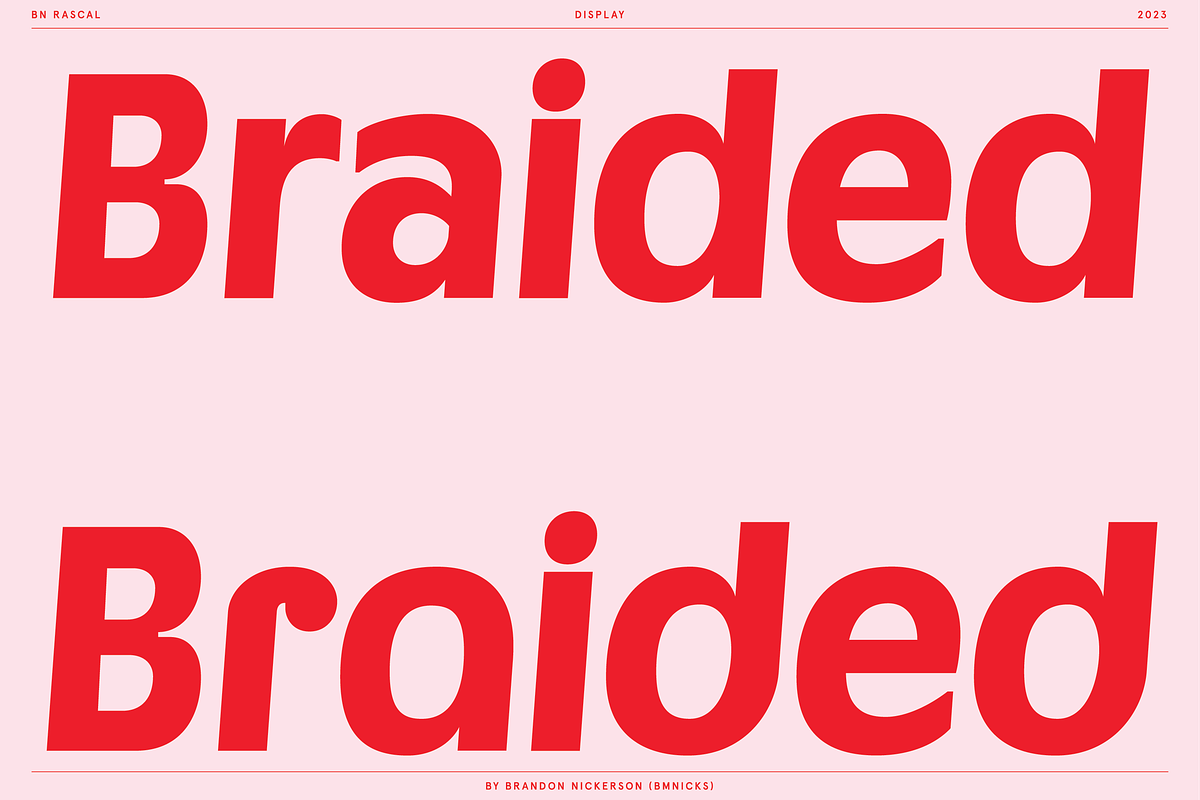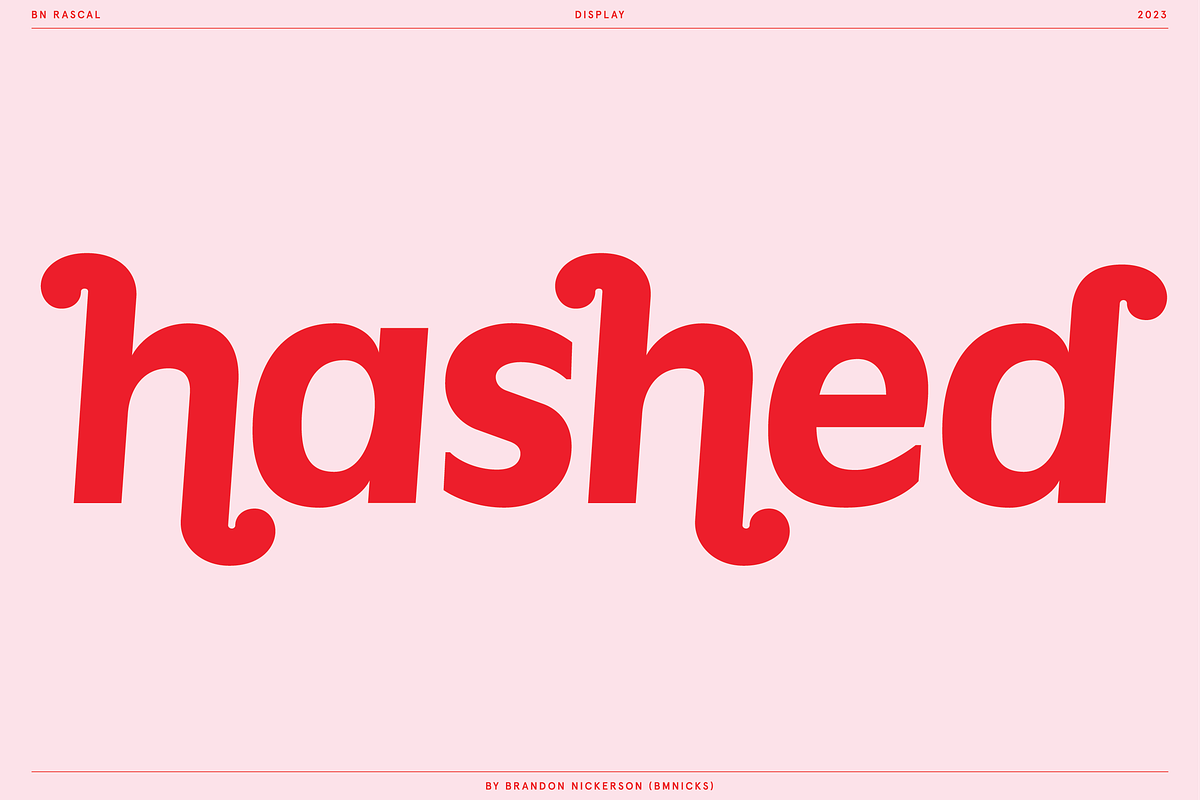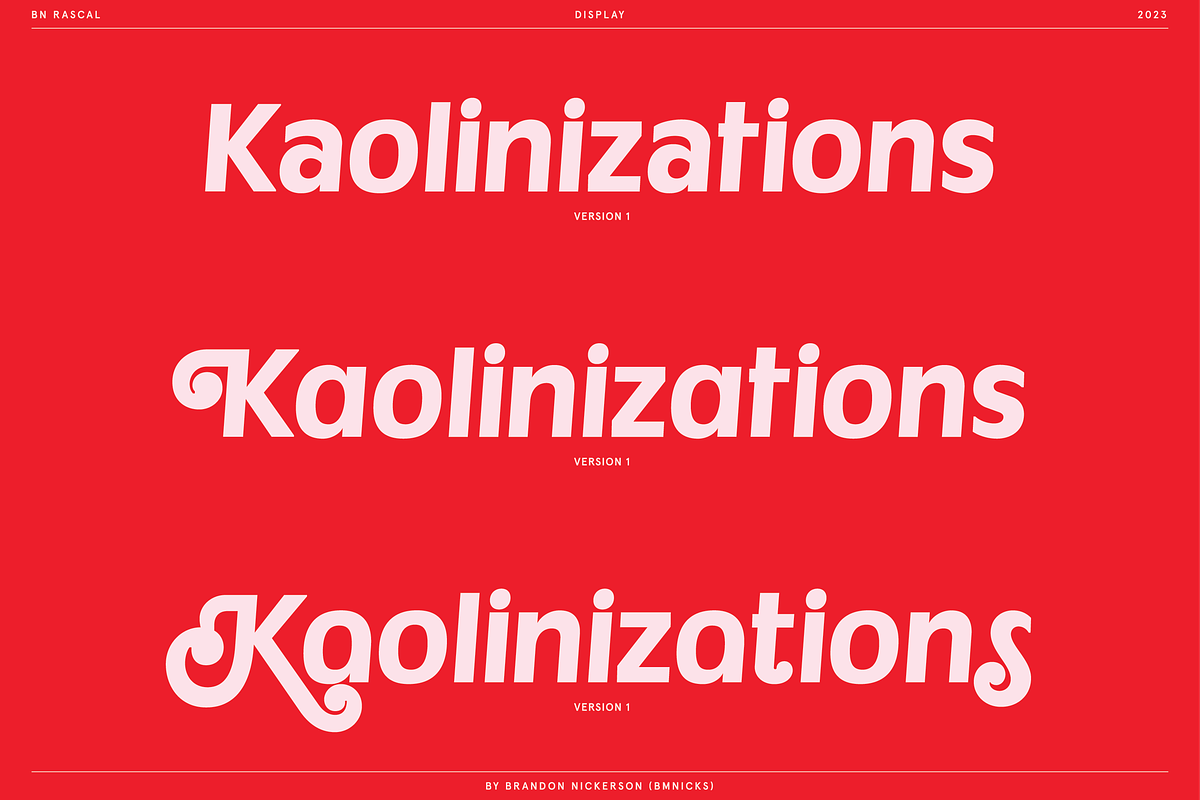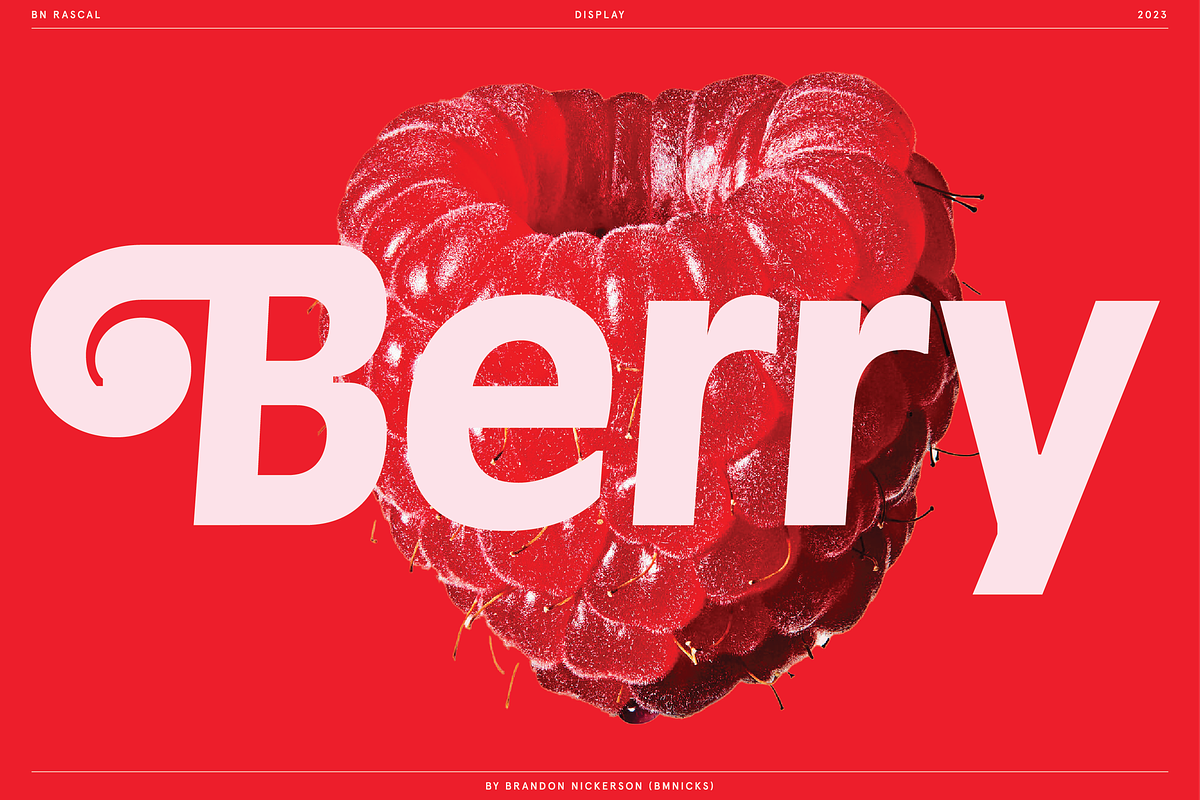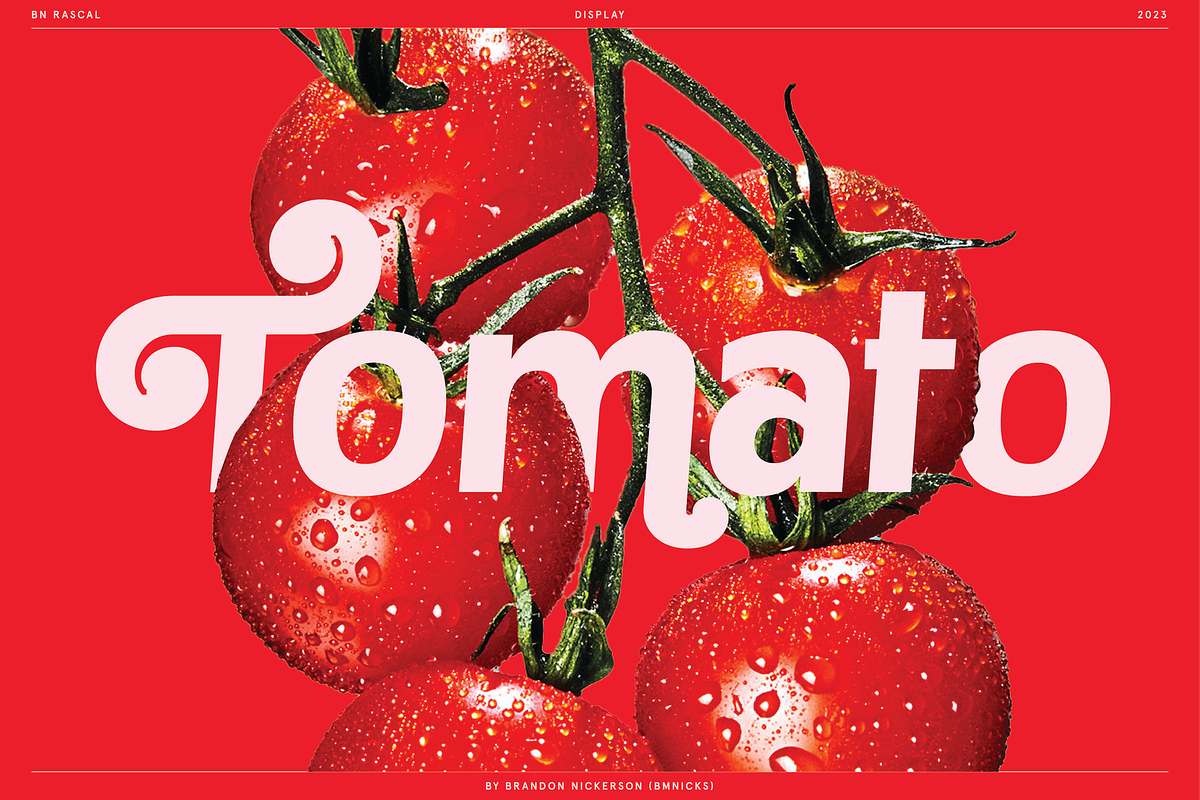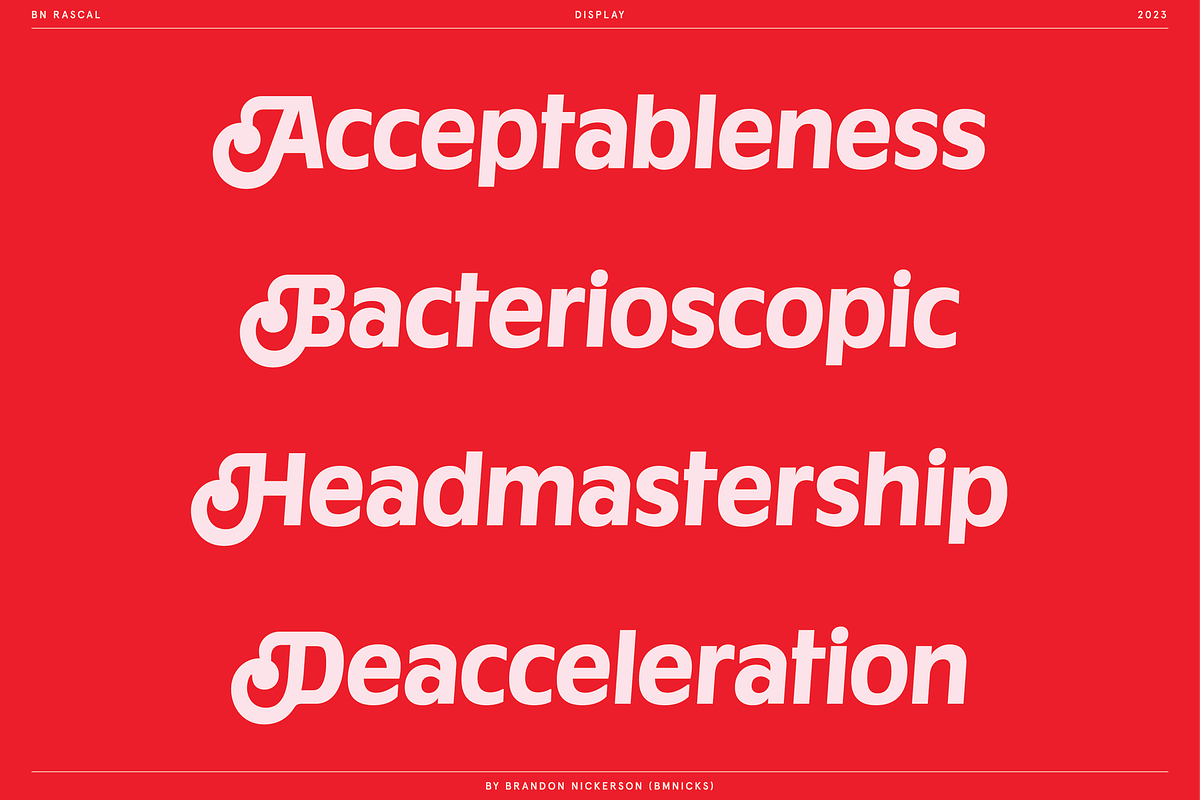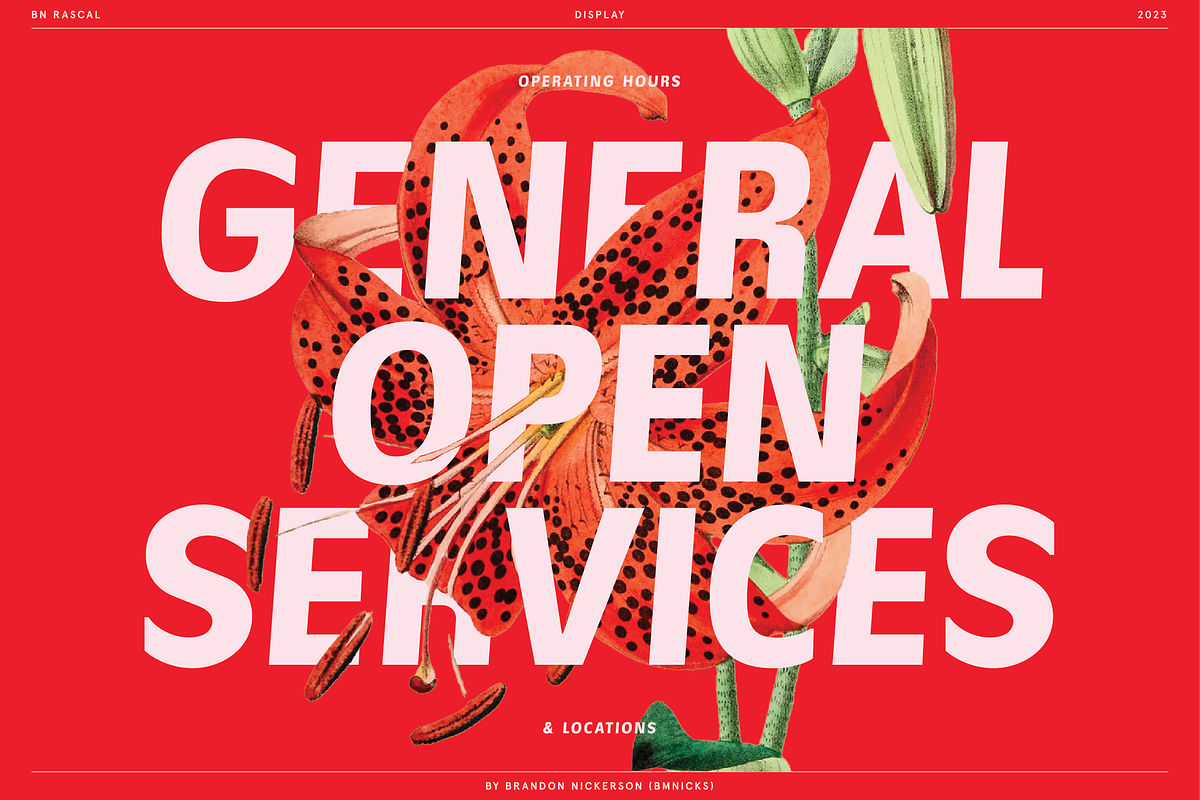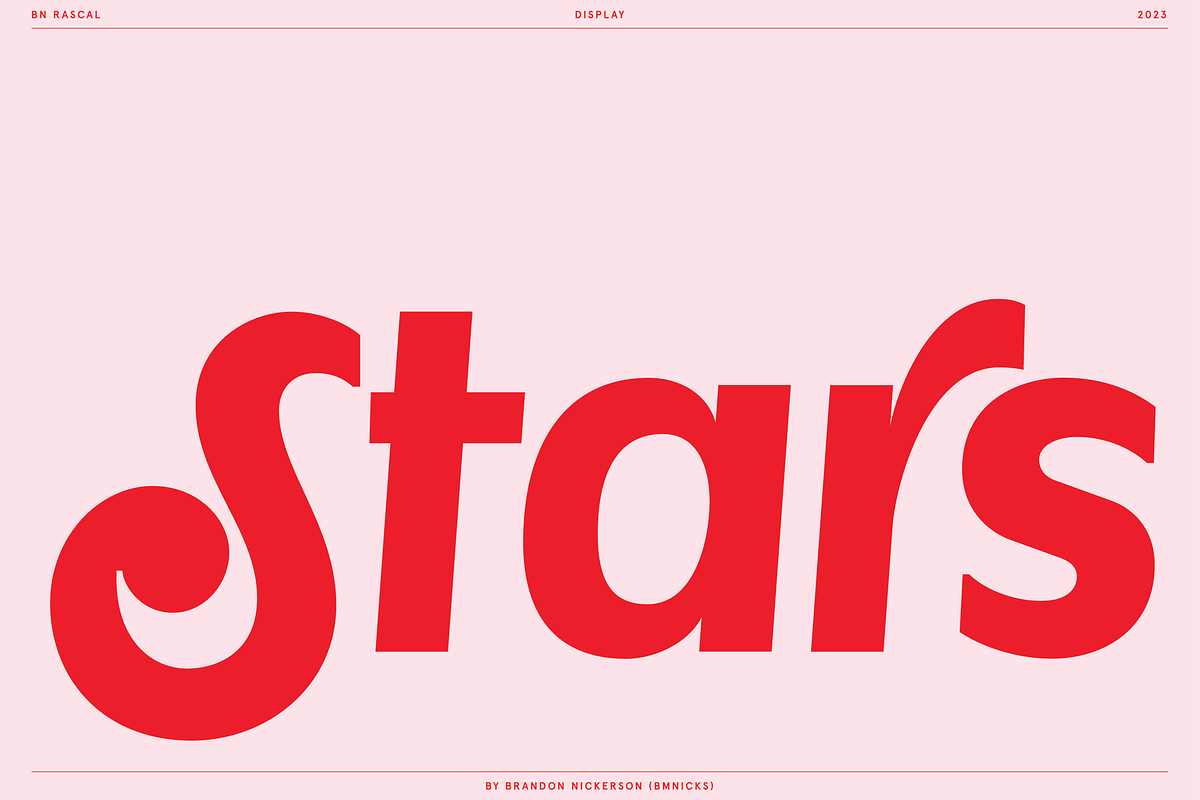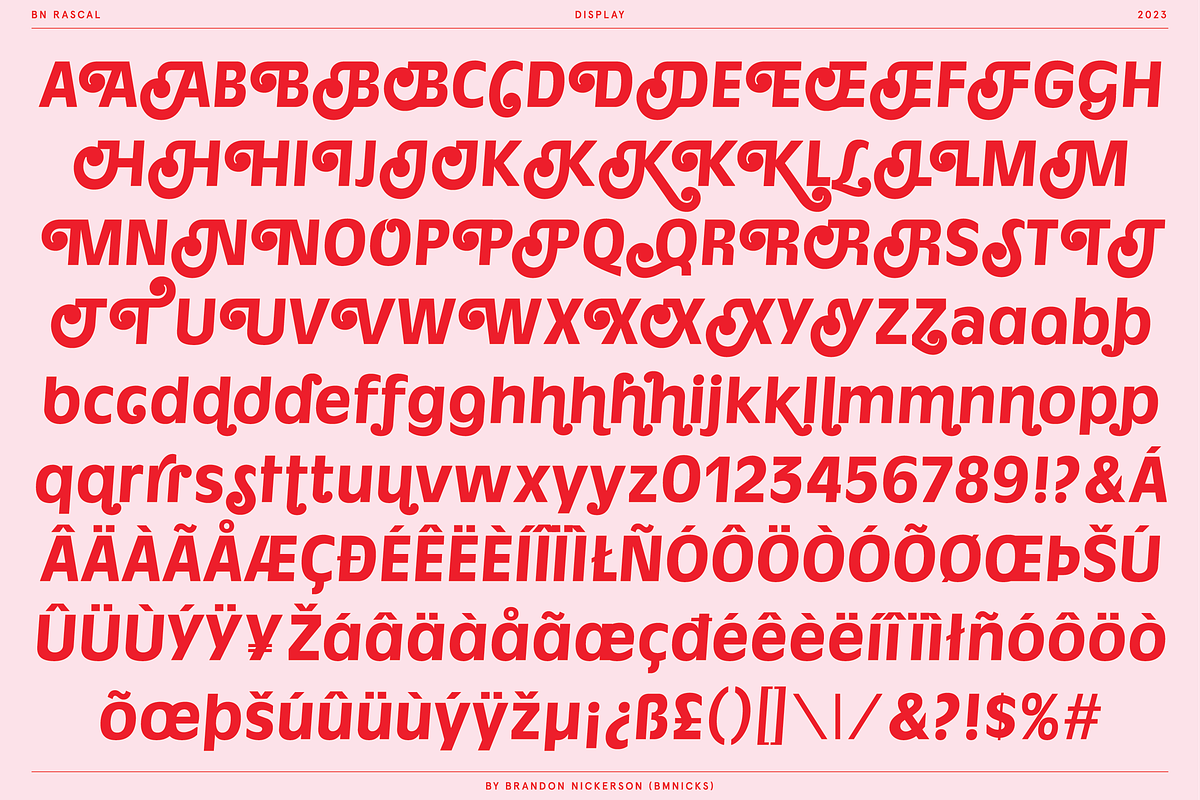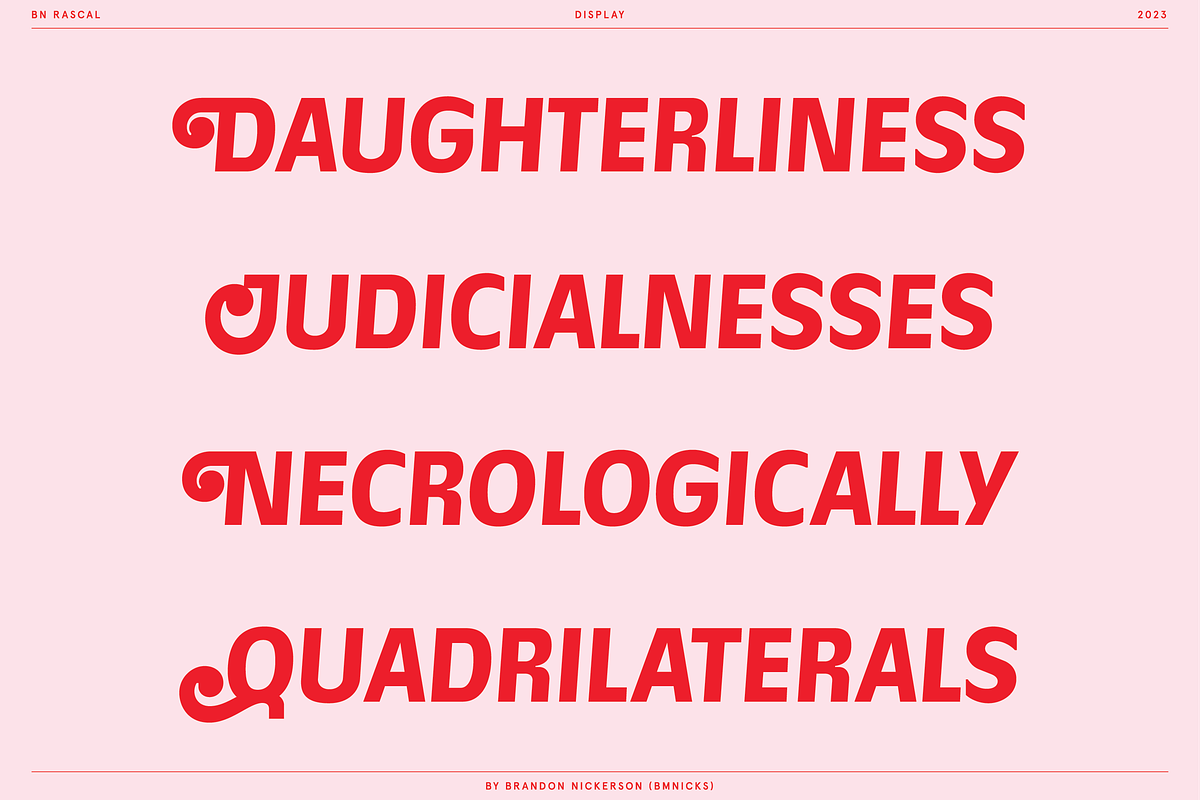
BN Rascal
BN Rascal is a bold display typeface built with personality at its core. Combining clean geometric structure with playful, exaggerated swash alternates, Rascal balances confidence and charm in a way that feels both contemporary and character-driven.
At its foundation, Rascal is a strong, modern sans serif. Layered on top are expressive alternate capitals and lowercase forms that introduce sculpted curls, soft terminals, and unexpected rhythm. The result is a versatile display system that can shift from refined and minimal to loud and ornamental with a simple stylistic swap.
Designed for high-impact typography, BN Rascal works beautifully in:
Branding & identity systems
Editorial headlines
Packaging design
Posters & campaign graphics
Social media & digital layouts
Uppercase & lowercase
Extensive alternates
Accents & multilingual support
High-contrast display presence